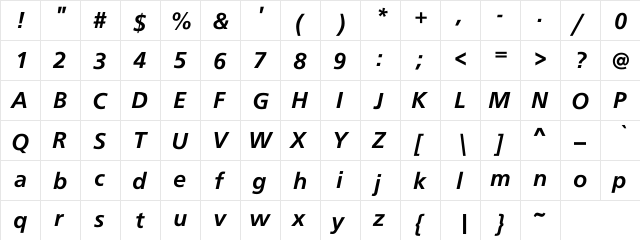
Cadet Sans Bold Italic Regular
Design Context for Cadet Sans Bold Italic Typeface
Cadet Sans Bold Italic takes a measured approach to typography — its balanced proportions and neutral character make it a reliable workhorse for both digital and print work. The dynamic lean of this cut emphasises speed and emphasis in any layout. The heavy weight commands attention and anchors typographic hierarchies.
Pro Tip: Use Cadet Sans Bold Italic for emphasis, pull quotes, and subheadings where its slanted energy can add rhythm to the layout.